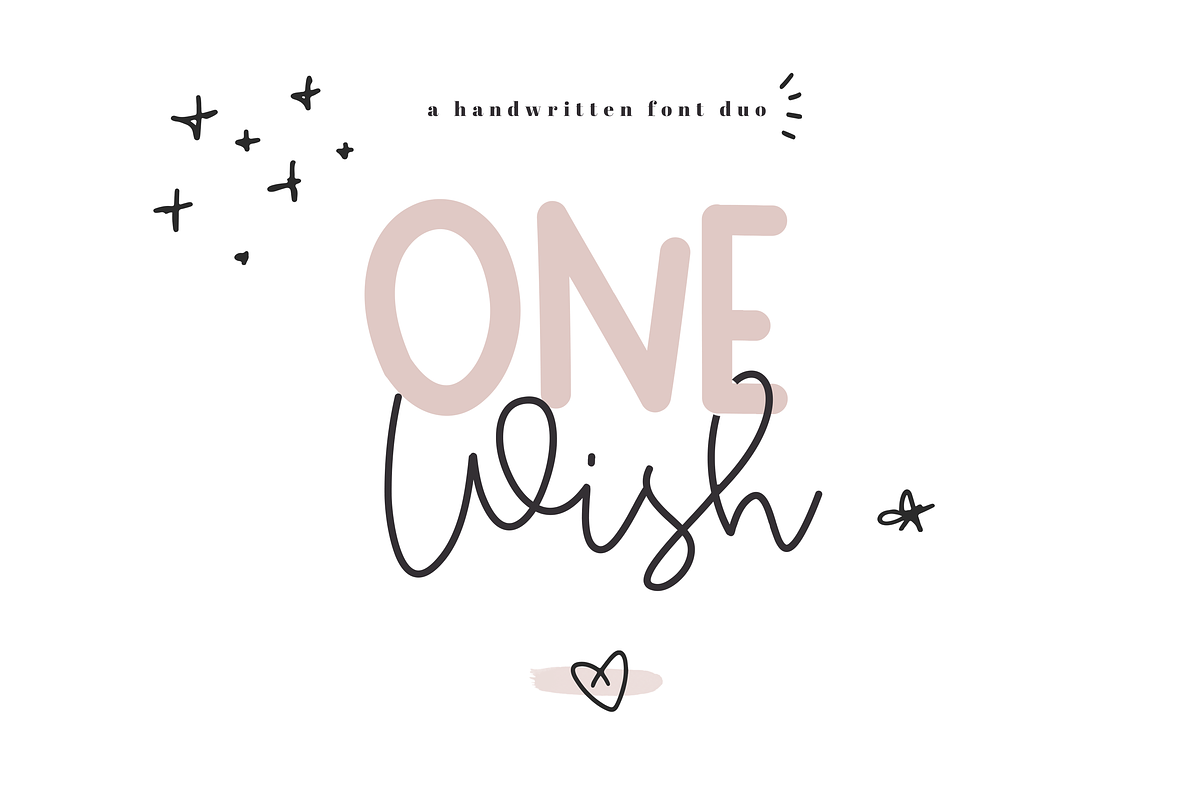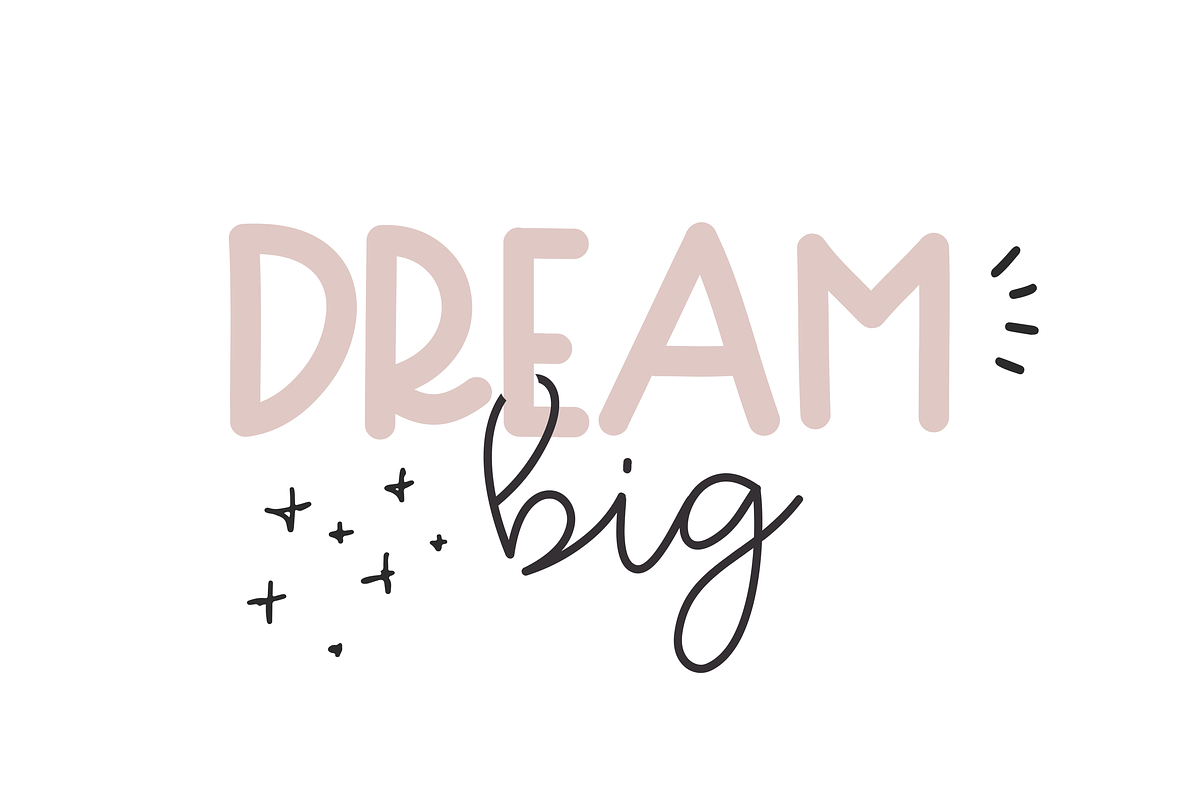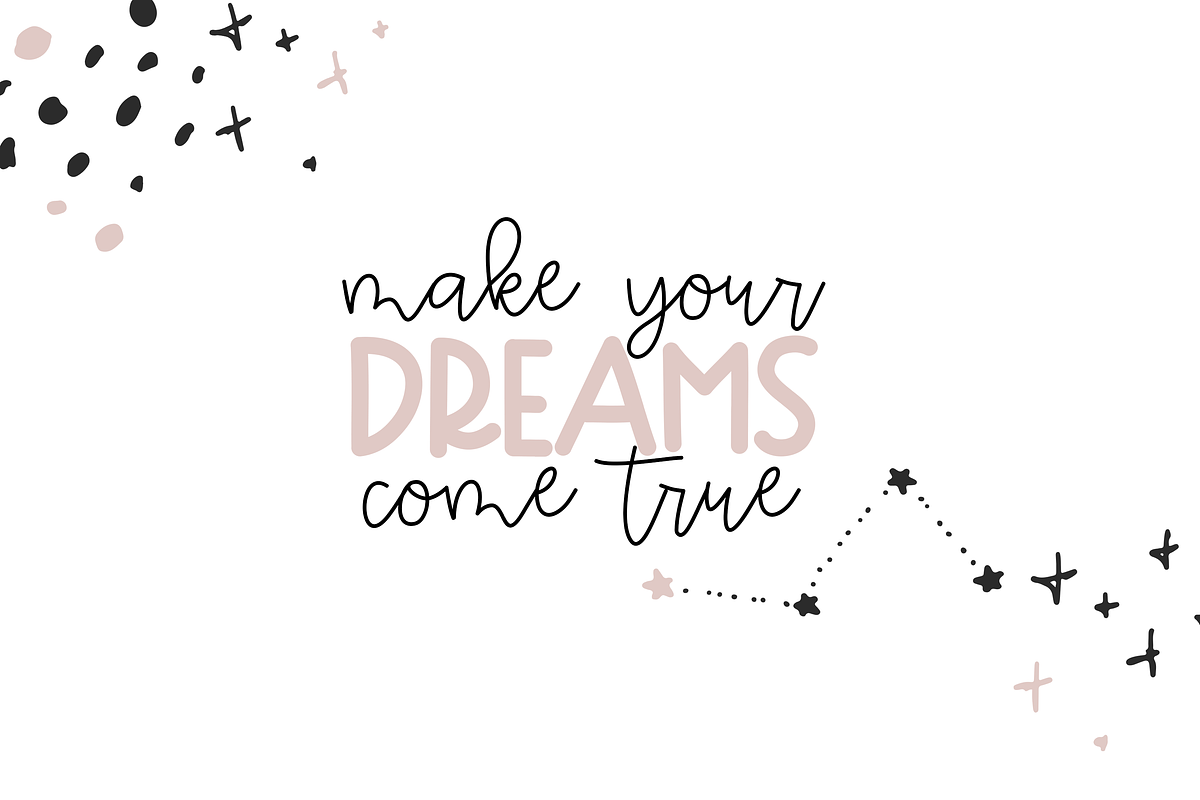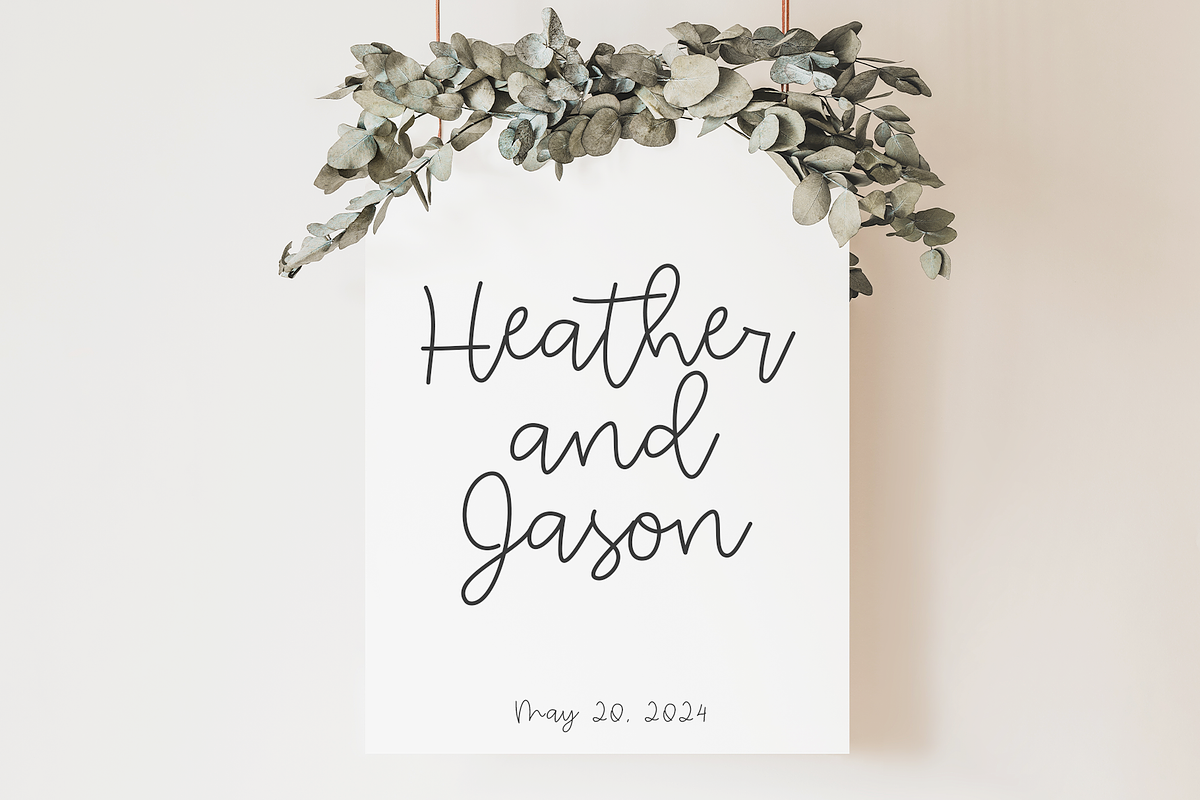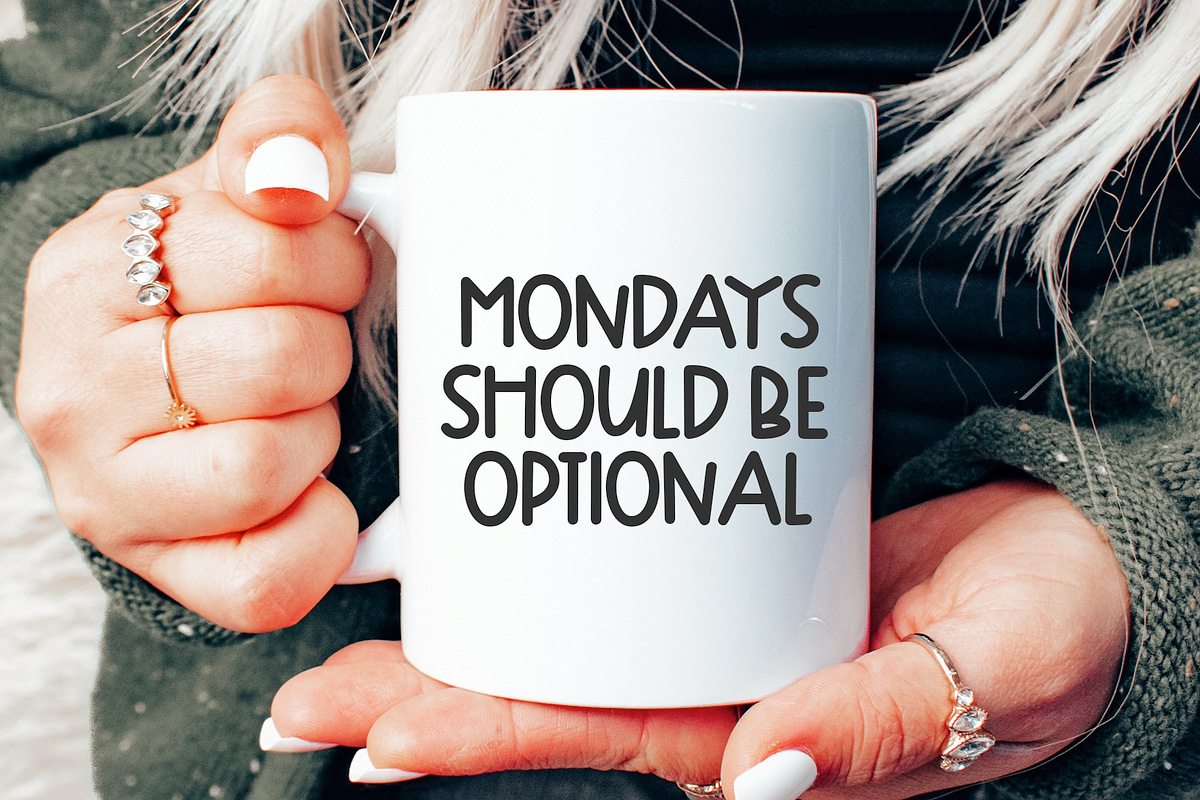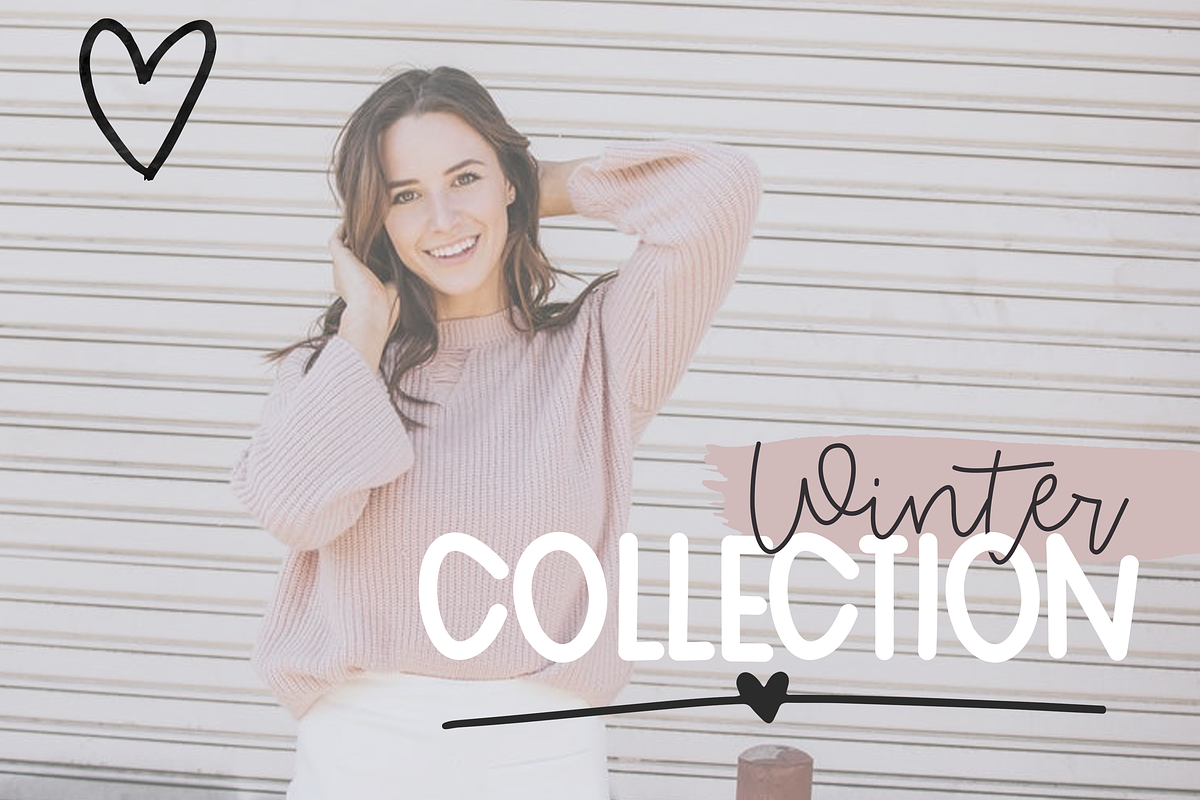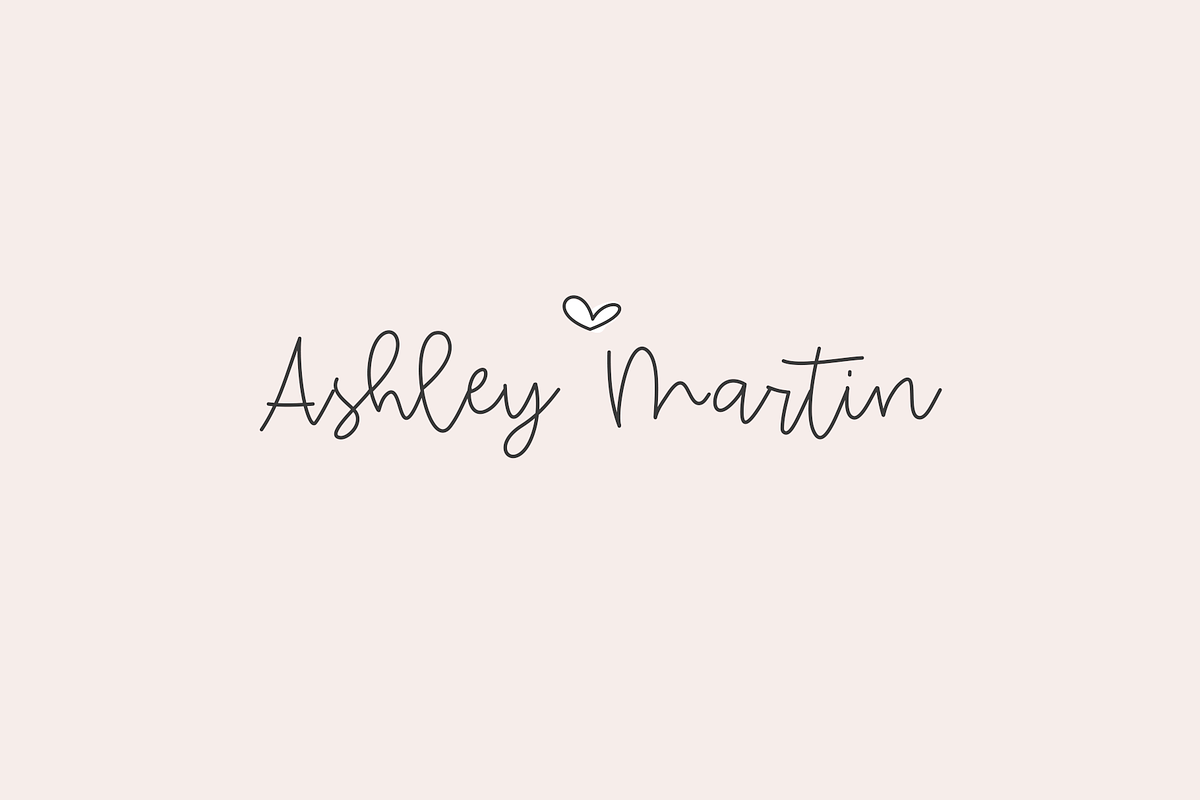
One Wish - Handwritten Font Duo
One Wish Font Duo is a handwritten font pair.
One Wish Print - a solid & bold, quirky print font. [TTF & OTF]
One Wish Script - a fun & elegant script font. [TTF & OTF]
This duo is perfect for quotes, headings, blogs, logos, brandings, invitations and more!
One Wish - Handwritten Font Duo by KA Designs fits naturally into Branding, posters, packaging, typography.